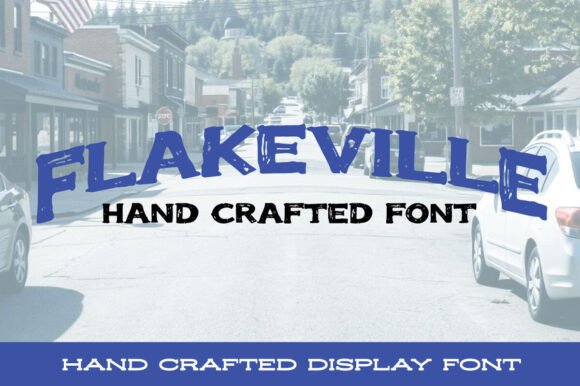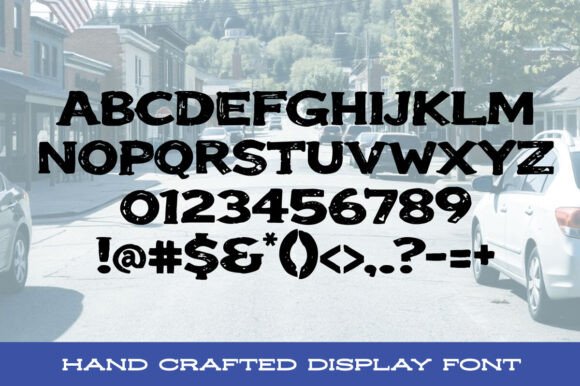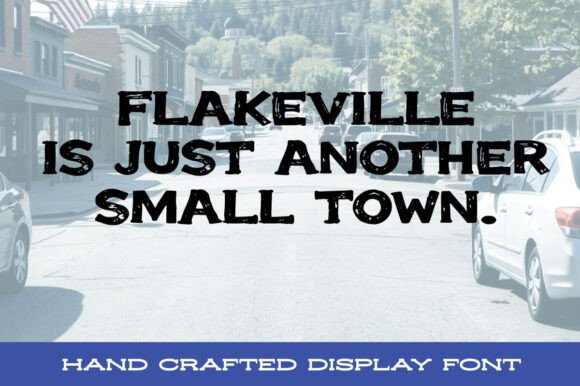
Flakeville Font: Distressed Retro Display Font for Authentic Branding
About the Flakeville Font
The wait is over! The incredible Flakeville Font is now available for your design toolkit. Flakeville is a hand-drawn retro font that marries vintage charm with distressed, characterful edges. Each letter is imbued with a sense of nostalgia—its uneven strokes and subtle weathering evoke the feel of time-worn signage and classic print. Ideal for projects that crave an authentic, imperfect vibe, Flakeville transforms headlines, posters, and branding into art pieces that tell their own unique story. With a playful yet time-honored aesthetic, this font is a celebration of creative imperfection and retro flair.
Flakeville Font Usage Examples
Flakeville Font Example